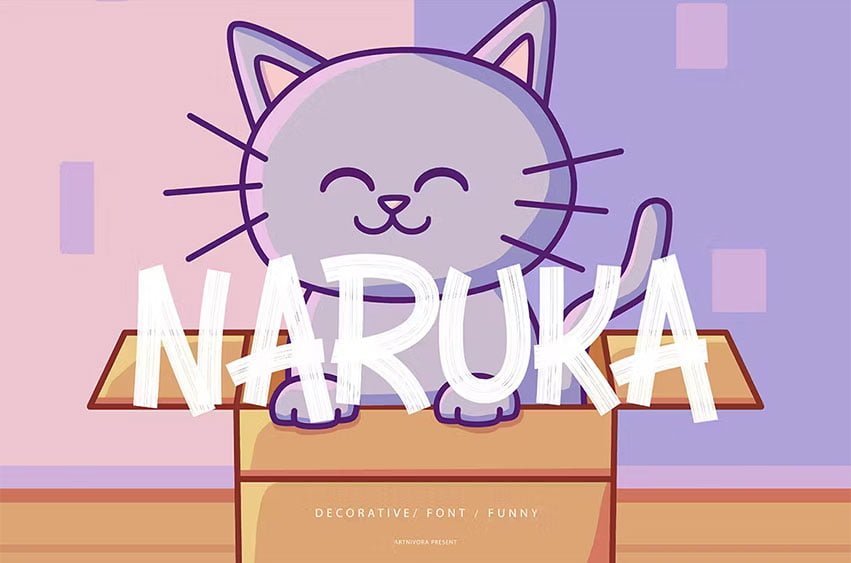
Naruka Font is a simple and decorative font. So perfect for you who needs a typeface for logo designs, magazine, social media, brochure, and many more.